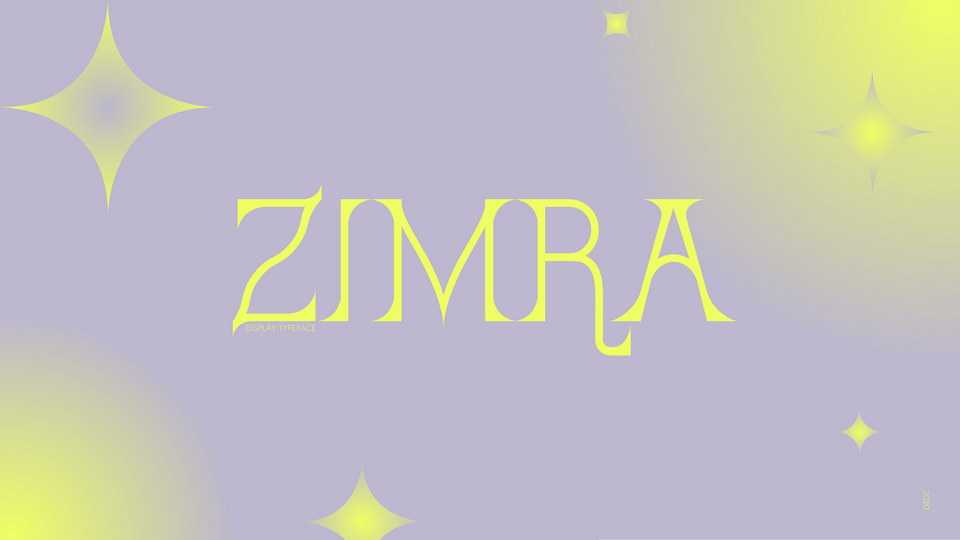
Download Zimra font, a unique display serif typeface with three styles with an elegant and artistic vibe. Zimra is perfect for headlines, posters, album artworks and editorial projects.